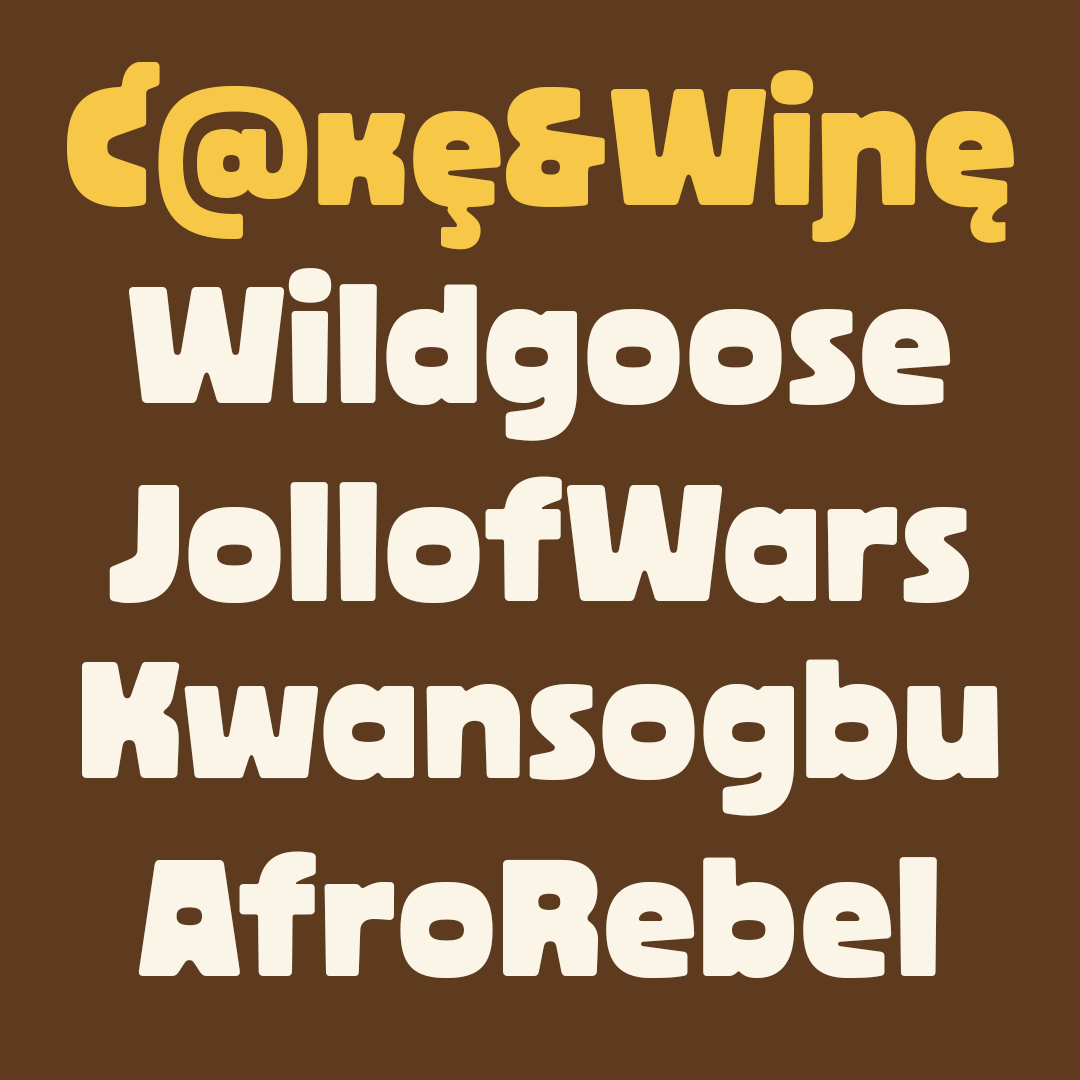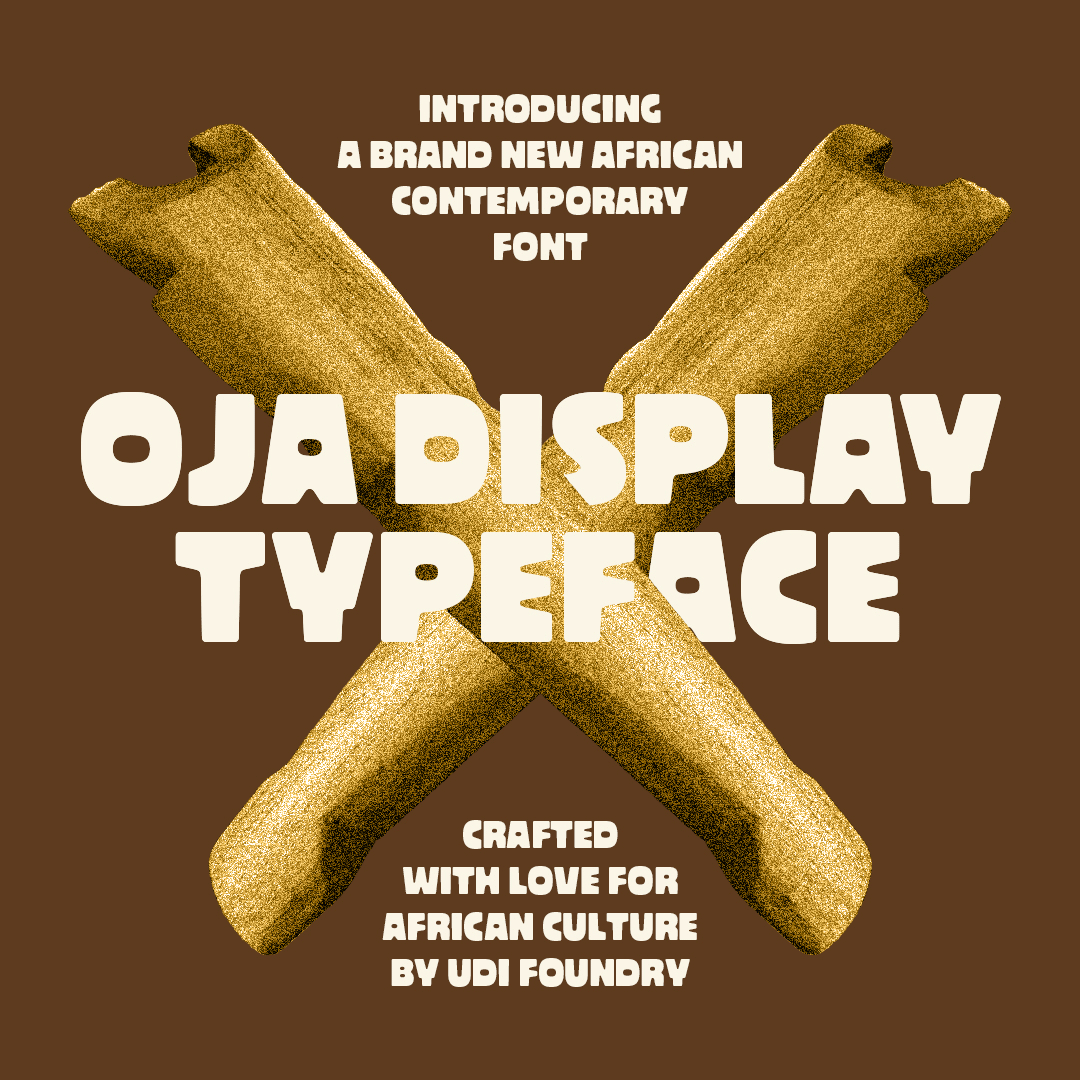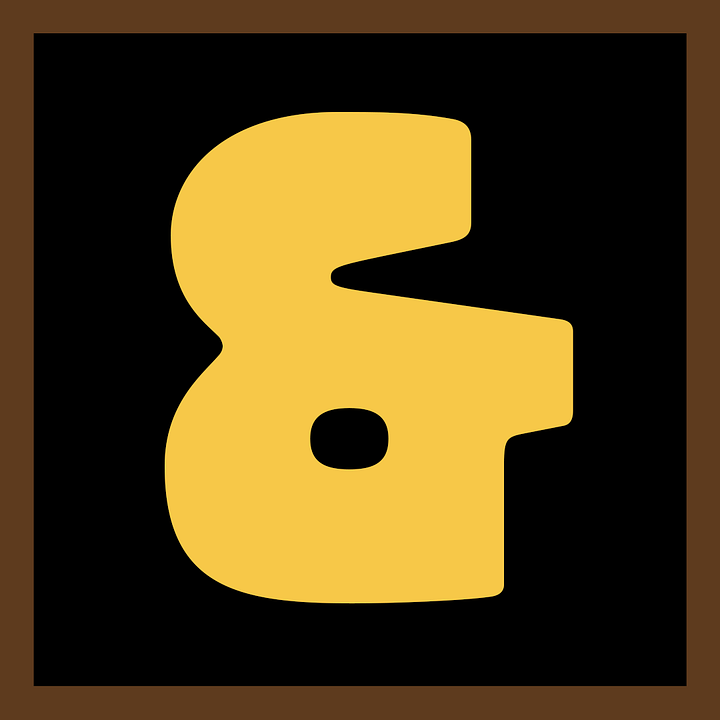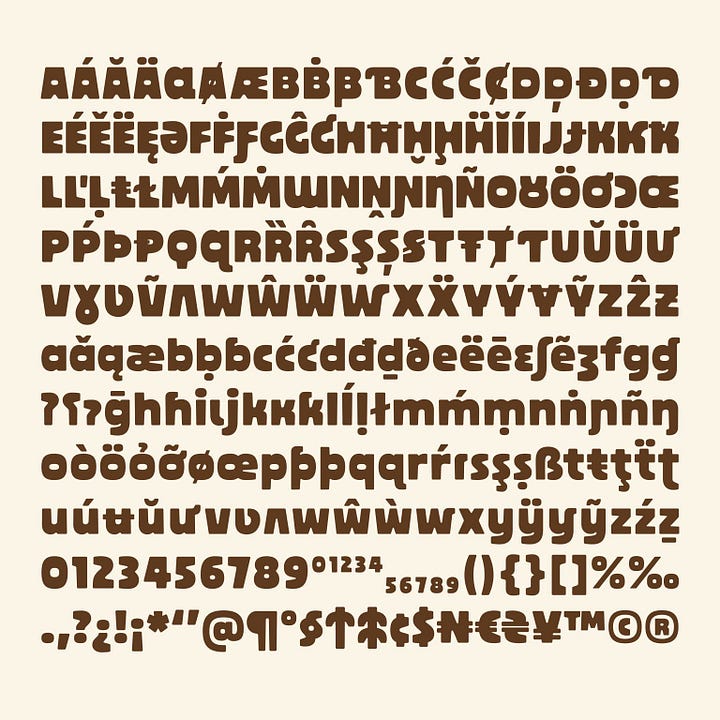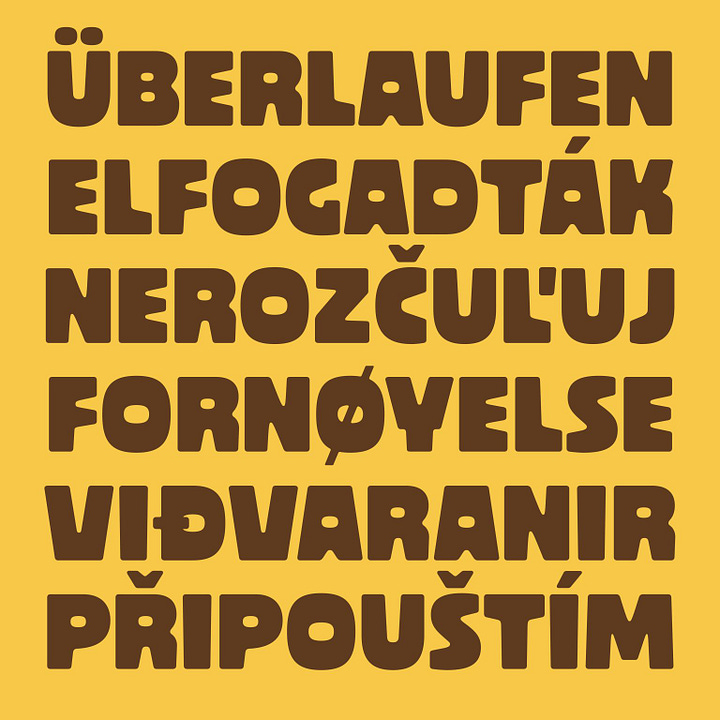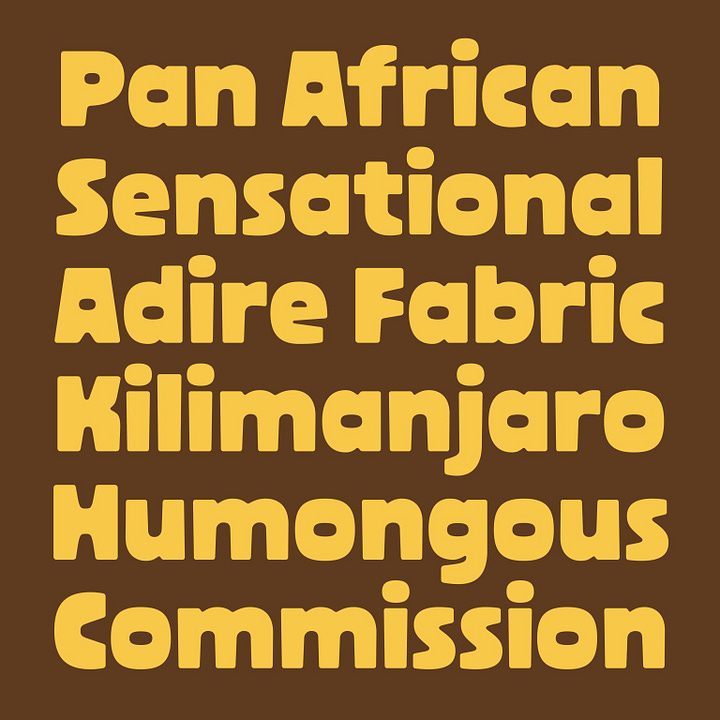
Nigerian type designer launches new typeface inspired by the traditional Oja flute from Eastern Nigeria
Oja Display, designed by Chisaokwu Joboson, is a bold and expressive typeface inspired by the anatomical structure of the traditional Oja flute from Eastern Nigeria.
Nigerian-based brand and type designer Chisaokwu Joboson, on Wednesday, announced the release of his latest typeface—Oja Display, a bold and expressive typeface inspired by the anatomical structure of the traditional Oja flute from Eastern Nigeria.
Announcing the typeface, he wrote, “I’m thrilled to have finally completed what began about a year ago as a type design exploration on African flutes.
“Today, I present Oja Display, a bold and expressive typeface inspired by the anatomical structure of the traditional Oja flute from Eastern Nigeria.”
Oja Display, he explains, “features unique counterforms shaped like the flute's finger holes and boldly tapered stems, striking a balance between modernity and heritage.”
He notes that Oja Display features 1,042 glyphs, and supports over 180 languages, and “is ideal for impactful headlines, editorial design, branding, and cultural projects.”
Joboson, who released his first typeface in collaboration with Google Fonts, shared that Oja Display is his second released contemporary typeface under Udi Type Foundry, an independent type design foundry he founded.
Oja Display is one of the many typeface ideas Joboson has been working on in the last year. In a conversation with The Creatives Note last April, Joboson shared, “I have a number of ideas on different typefaces and I am currently exploring and working on 5 different typefaces, all of African essence, which I would like to put out.”